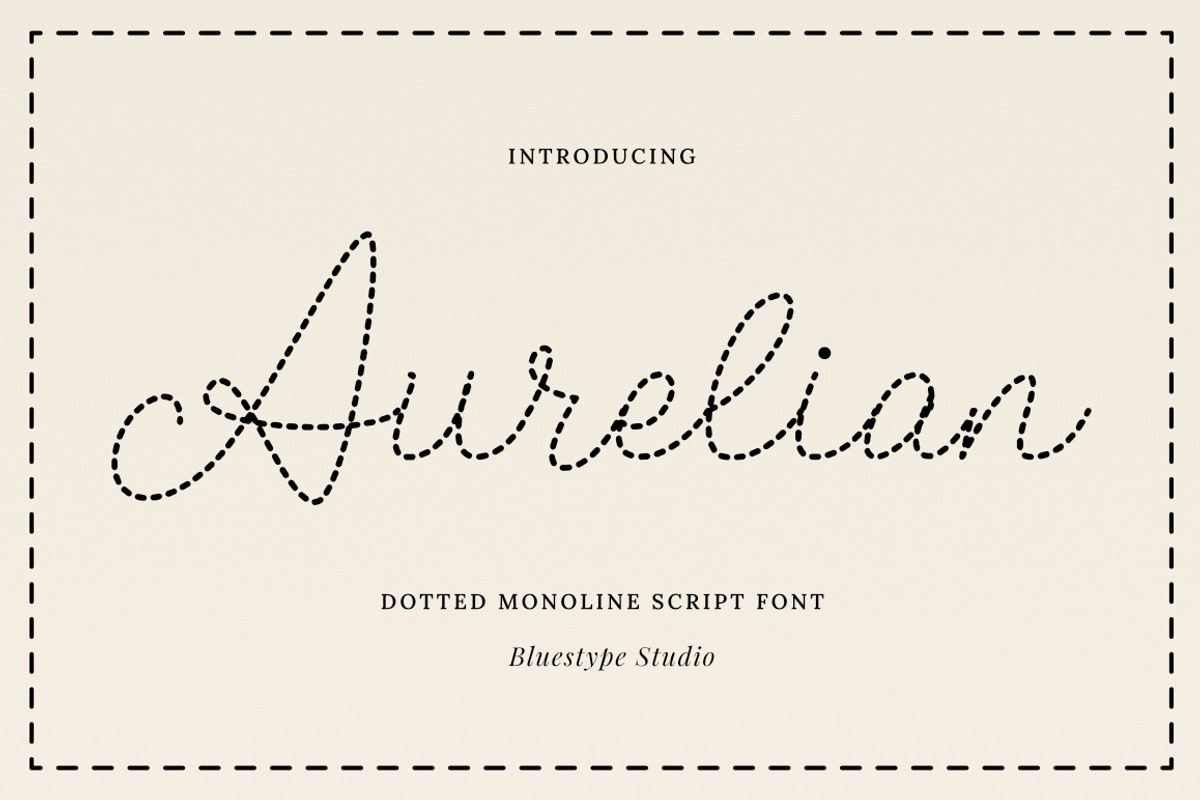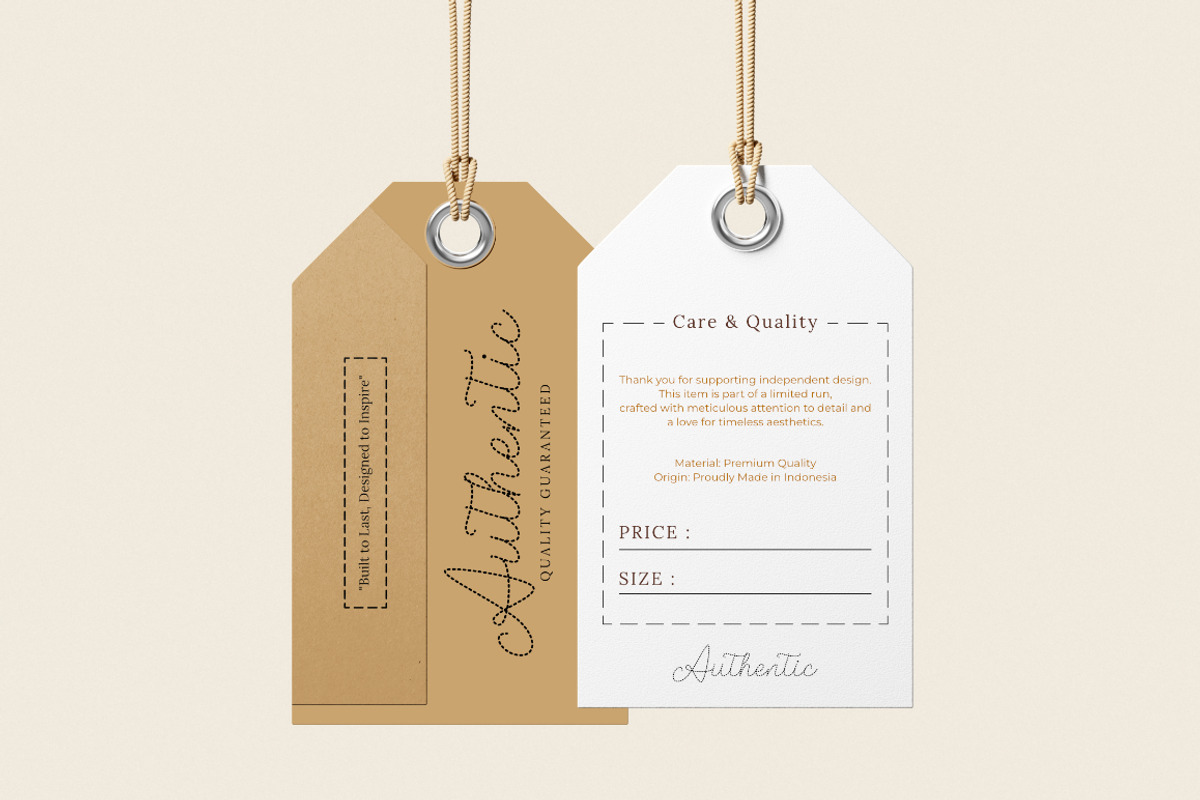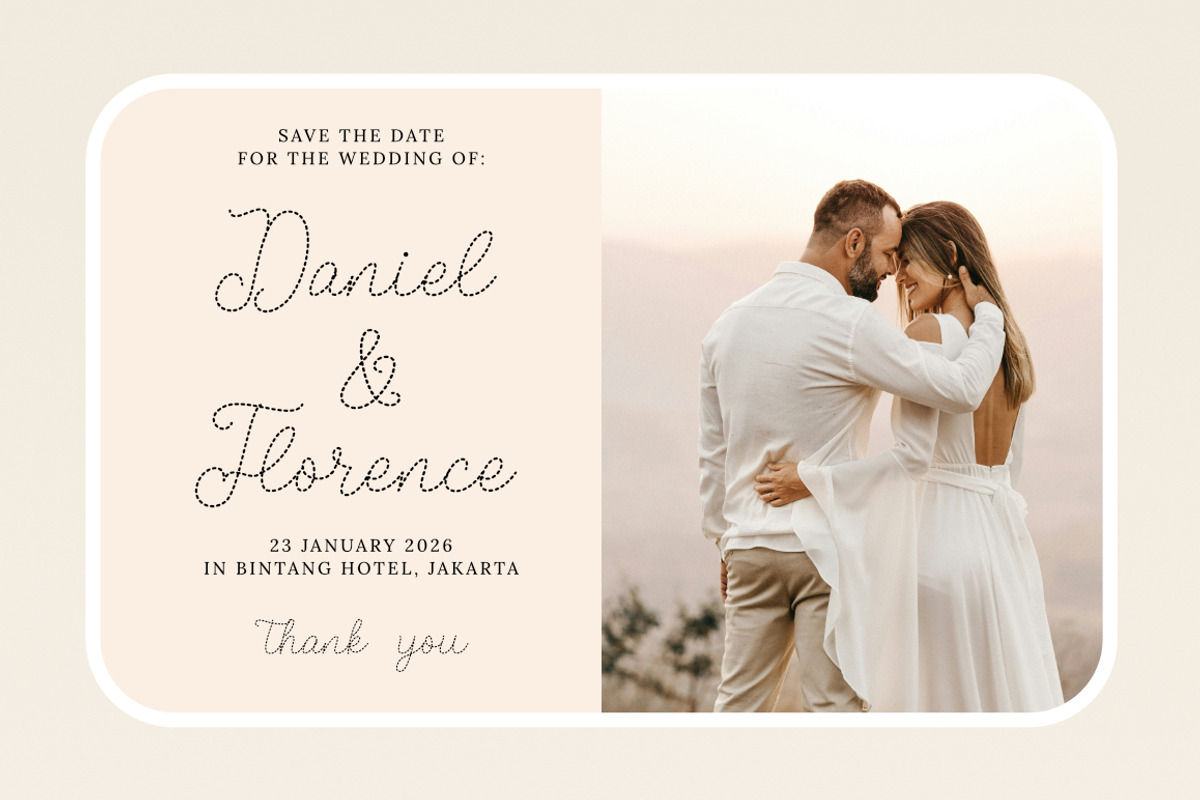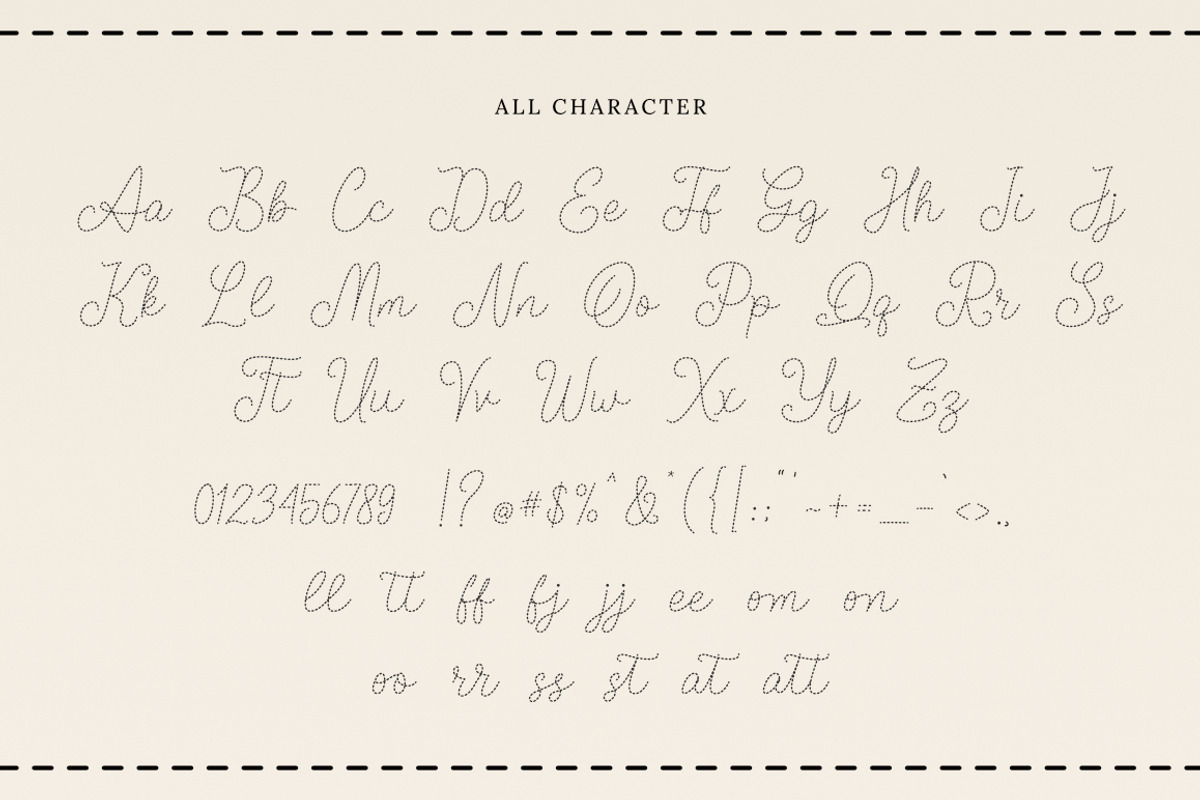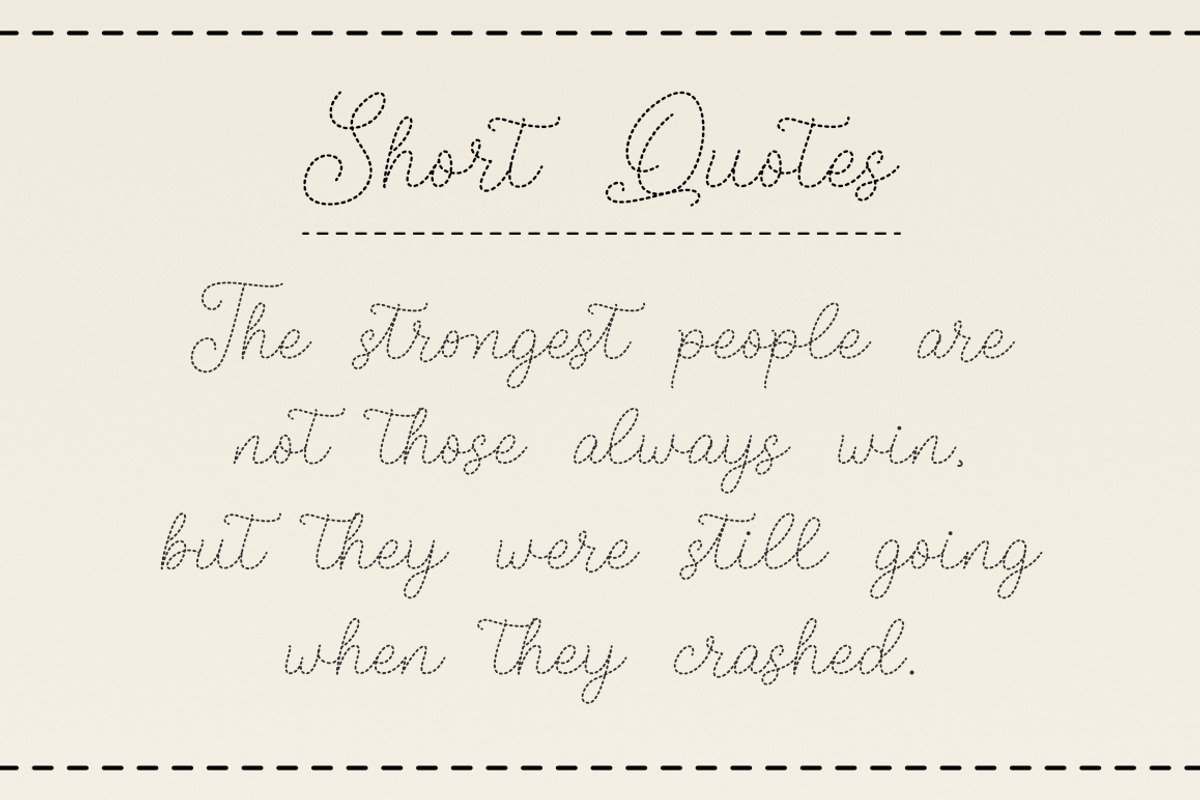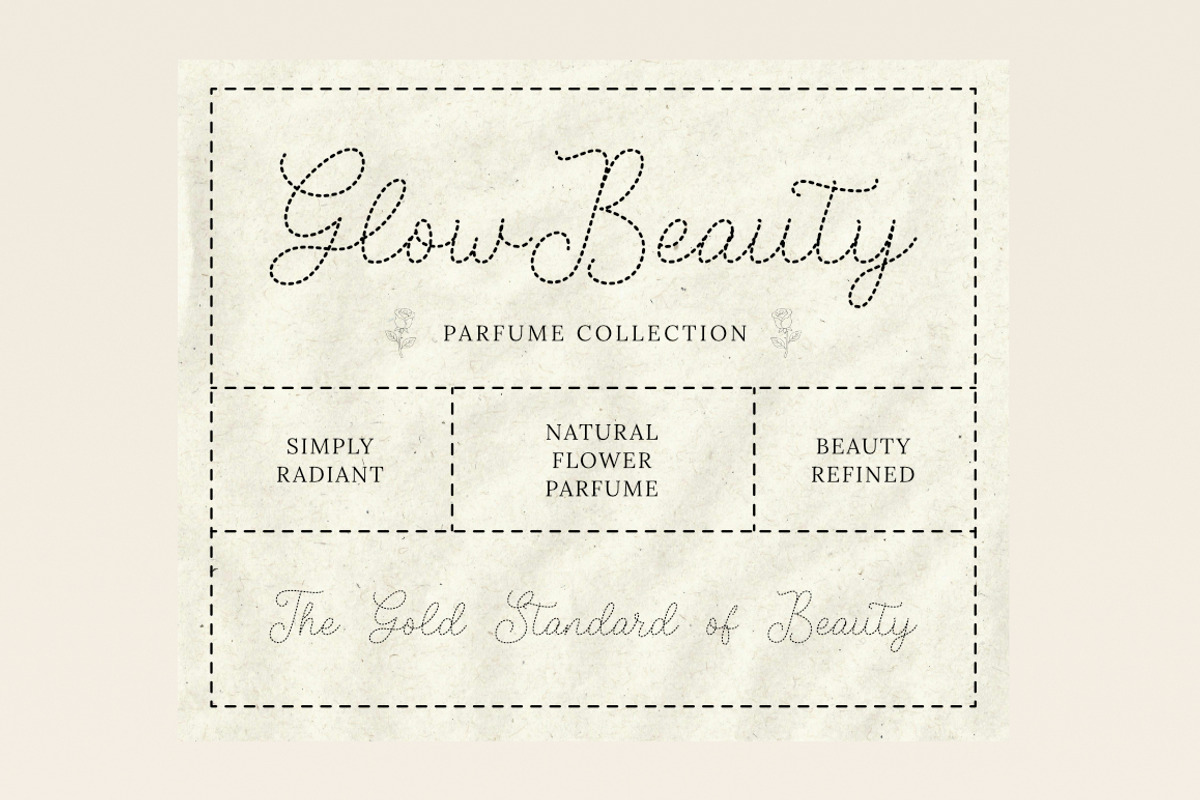
Aurelian - Dotted Script Font
Aurelian, a premium dotted monoline script font. A sophisticated dotted monoline script font that blends modern minimalism with a handcrafted touch. Designed with precision, Aurelian features a consistent stroke weight and a delicate stippled texture, creating a "trace-along" or "stitched" look that is both playful and refined.
Perfect for minimalist branding, DIY crafts, logo, quotes, apparel design and elegant invitations. Add a unique, handcrafted stippled effect to your typography projects today!